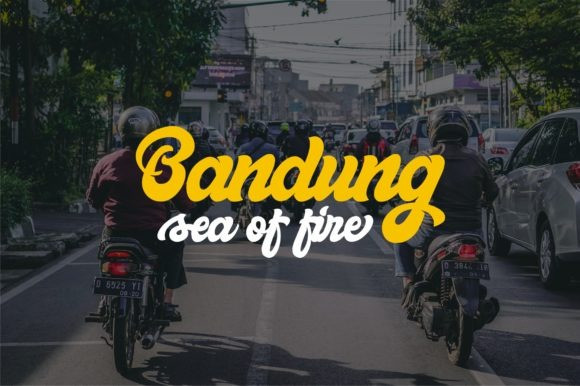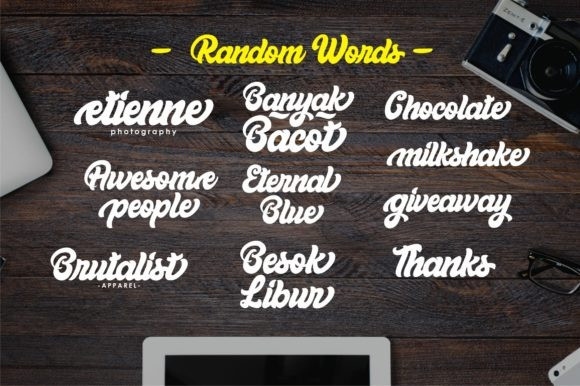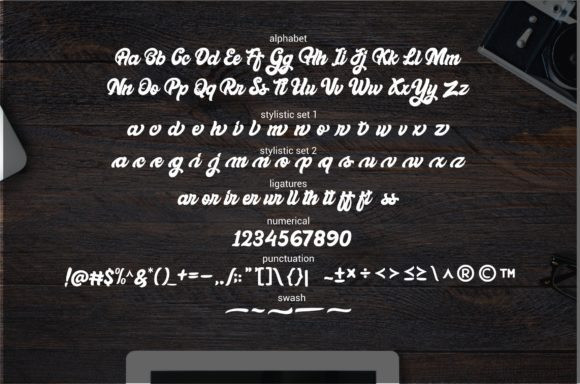
Bellynice Bold Script Font
Bellynice Bold Script – Free Demo
Hello friend. This is a bold script that will stands out from the crowd. Every single letters have been carefully crafted to make your text looks beautiful! Introducing Bellynice Font. It’s a bold script font. It was inspired by jelly fat and is perfect for adding a striking look to your designs. This font is suitable for Headline, logo font, typography design, t-shirt design, invitation, branding, packaging, advertising, classic design, poster design etc.